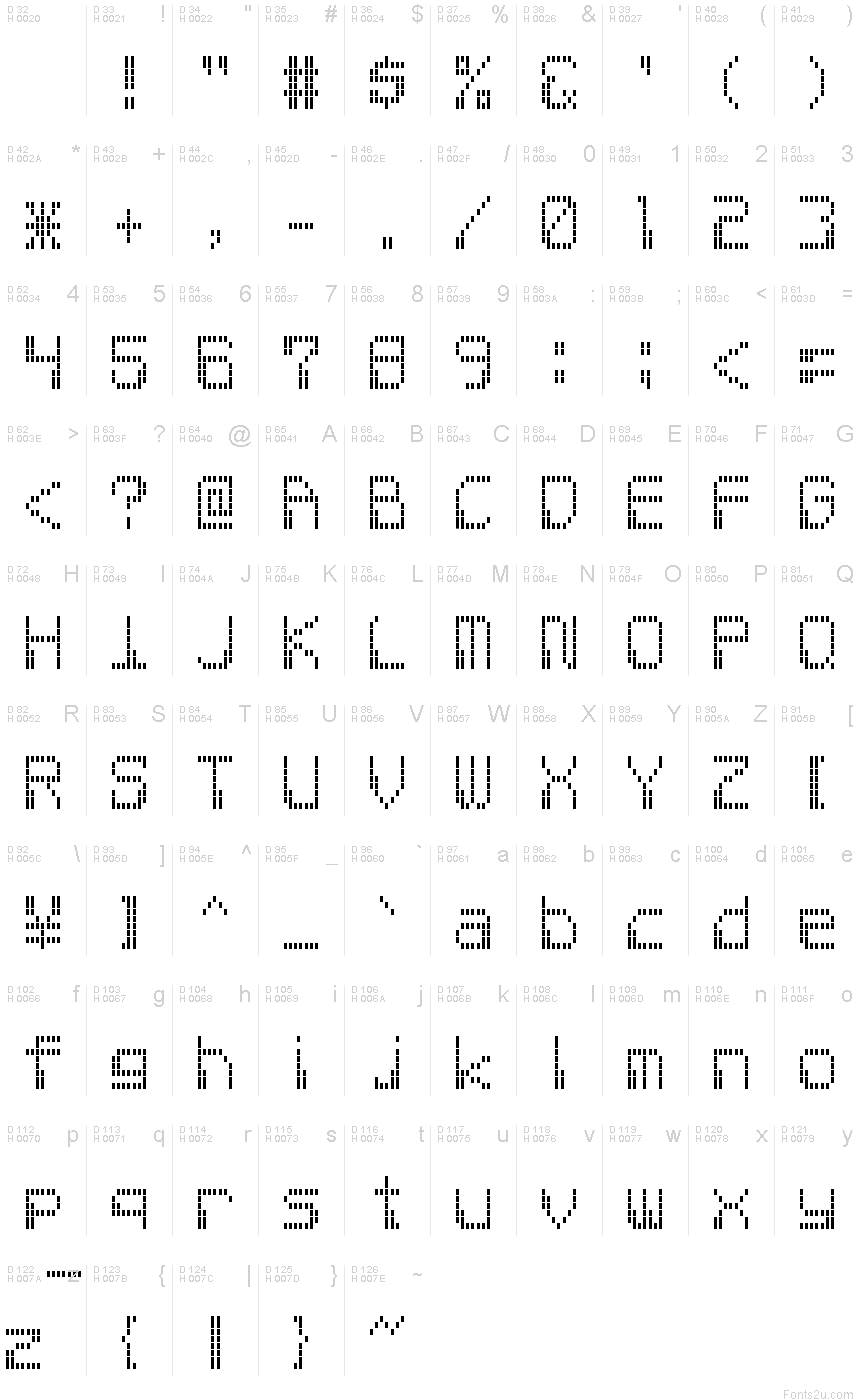
electron 8f
Electron 8F font by Takatoshi Katoh is a free digital display font with a sharp, grid-snapped look that feels straight off an old terminal screen. Its chunky square modules and deliberate gaps give every word a flickering, coded rhythm, so even short headlines instantly read as techy, retro, and a little bit futuristic.
Using Electron 8F works beautifully for game titles, sci-fi posters, hacker-themed branding, album covers, stream overlays, app splash screens, and event flyers with an arcade pulse. This free font shines at larger sizes where its blocky texture can breathe; pair it with a clean neutral sans for body copy to keep the pixel attitude crisp.